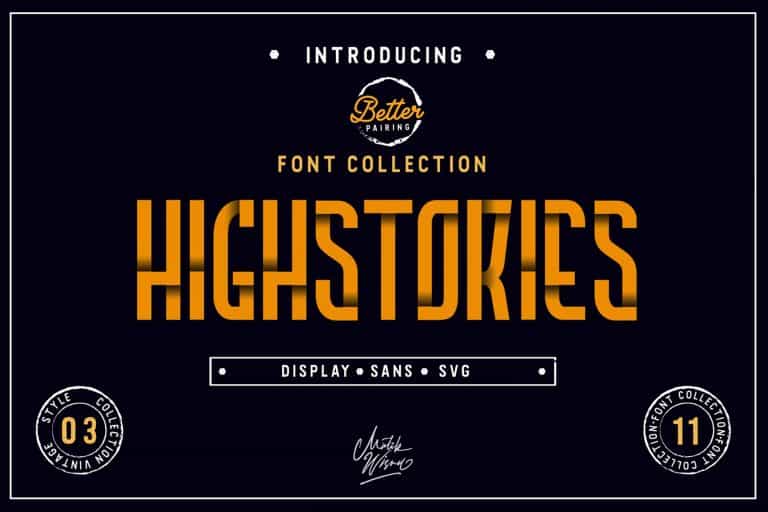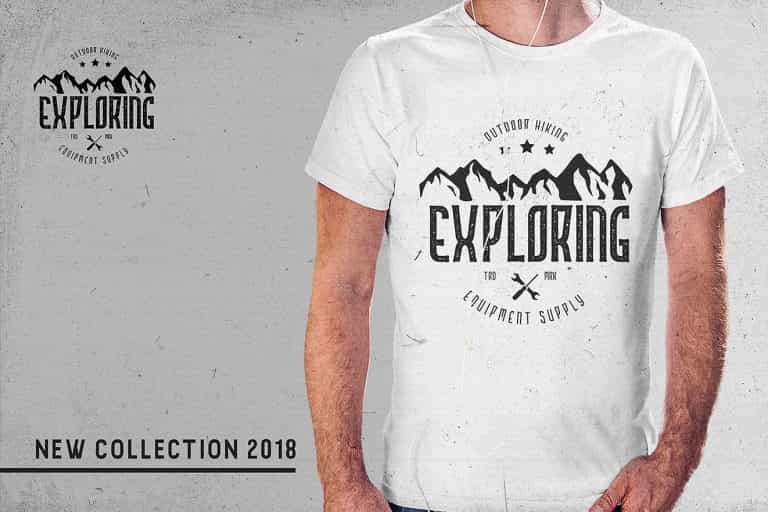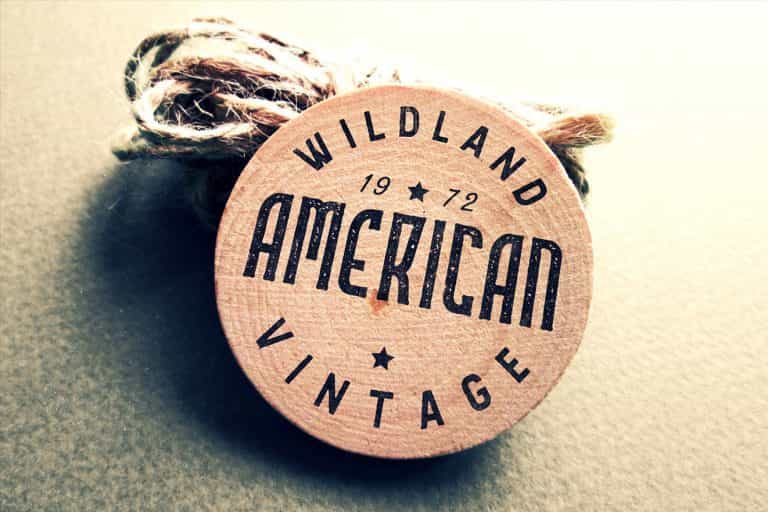
Discover Highstories Font Family, part of the Display Stencil Army Retro collection—a versatile and unique font perfect for adding a personal touch to your projects. Download it for free and enjoy crafting designs with style, from invitations to social media posts. This font is available exclusively for personal use, giving you the freedom to create without limits. Unlock your creativity with Highstories Font Family today!
Introducing Highstories Font. The font collection with the most interesting styles and a beautiful blend in your design is the best one for use. The letters are firm and easy to read, which make them perfect for Poster, Branding, Logotype,t-shirt design product design,packaging Quotes and more again.